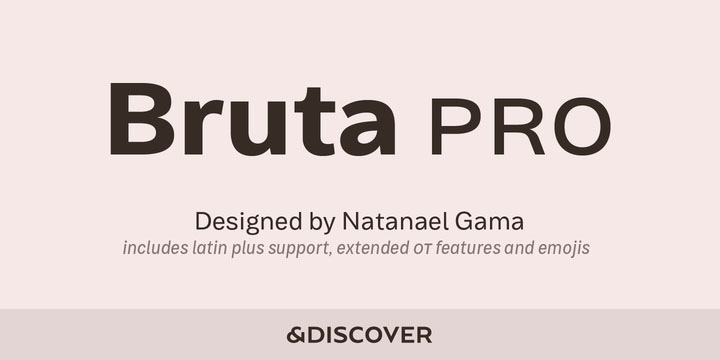
Bruta Pro Font
Bruta Pro Font is perfect for branding, editorial headlines, website headings, social media graphics, and poster designs. Its bold, modern, and professional style makes it ideal for creating strong visual impact in any project.
What makes Bruta Pro Font exciting is its geometric, well-balanced letterforms that combine readability with a contemporary edge. The font’s striking design ensures your text stands out with confidence and style.
The Bruta Pro Font family includes Regular, Bold, Italic, and Extended variations, giving designers flexibility to craft cohesive and dynamic typographic compositions.